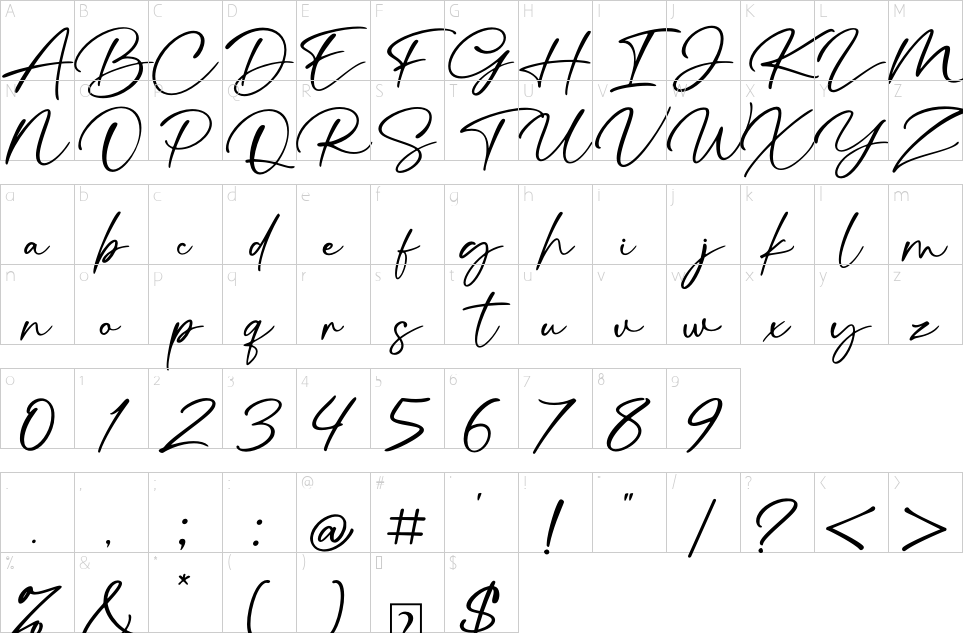
Signatura Onellander Fuente
Nota De Los DiseñadoresSignatura Onellander a Elegant Script Font that adds a elegant, versatile touch to everything from branding and social media to invitations and packaging. Purchase a commercial license here: https://basnistudio.com/product/signatura-onellander-a-handwritten-font/ For Custom license, contact me via email If you have any questions please don’t hesitate to Contact me at  And check our Site http://www.Basnistudio.com And follow my Instagram for update: @basni.std , I really appreciate your donations. Thank you :) Mapa De CaracteresContenido Del Archivo